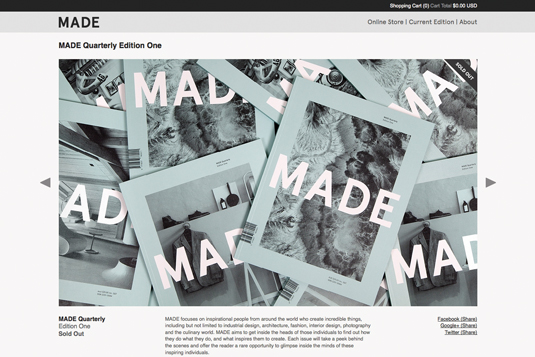
Greatest fonts countdown: 51 – Aperçu
51. Aperçu
The Colophon foundry was set up by designers Anthony Sheret and Edd Harrington, who are based in Brighton in the UK. Their studio, The Entente, typically designs identities, books, exhibition graphics and more, and along the way creates bespoke typefaces. Building upon this, some of the letter work they do gets turned into full, standalone typefaces, which are sold by Colophon.
They've made names for themselves, particularly with web designers looking for unique typefaces that can be practically applied online. Aperçu is a hugely popular example of just such a typeface. In 2009 the pair began designing and trialling the typeface, using it in certain commissions they were working on, before releasing it for sale in 2010. Their aim was to create a typeface approximating classic sans-serif humanist fonts like Johnston, Gill Sans, Neuzeit and Franklin Gothic. It currently comes in 12 families, and now includes a Roman serif version, and italics.
It has gone far beyond being a solid choice for web designers. Designers Hunt&Co has used it for the magazine for creatives, MADE Quarterly. The typeface has also been used by MoMA and Zeit Magazine. Of course, it also appears on plenty of websites.
Colophon has since released a Pro version with 530 characters per weight, supporting Central and East European languages, as well as Cyrillic alphabets. Could its popularity be an of-the-moment thing among web designers? Time will tell, but at the moment it sits at number 51 on our list.